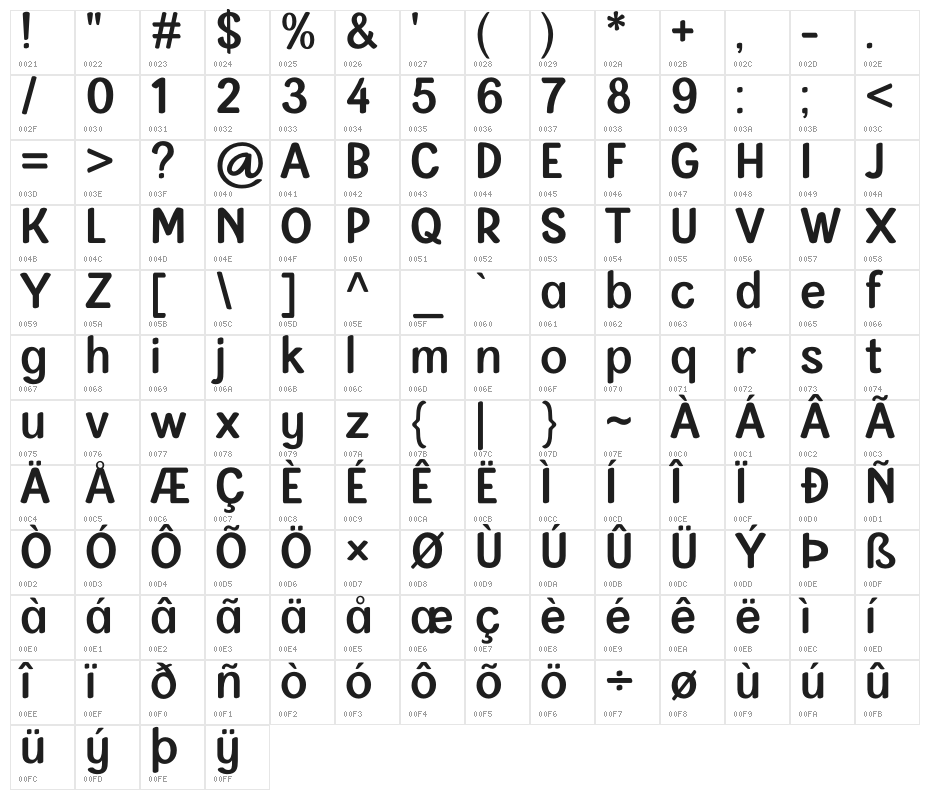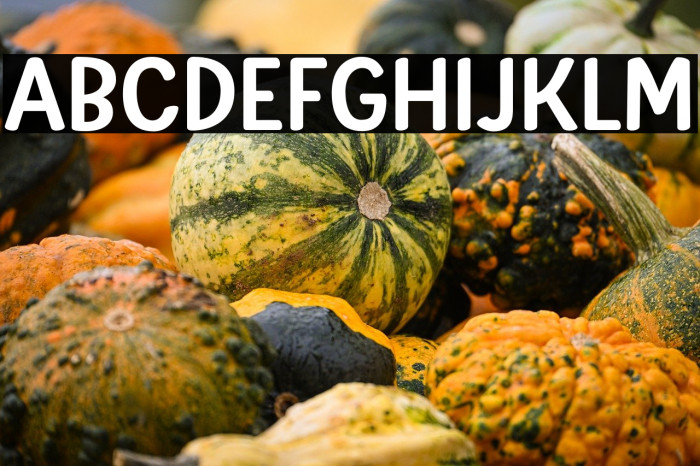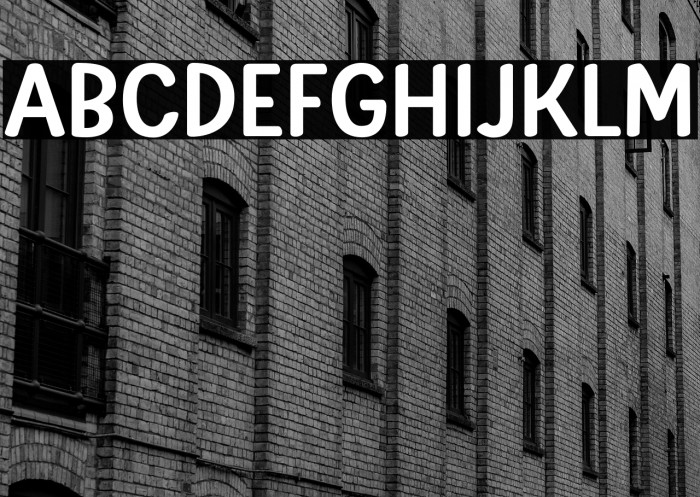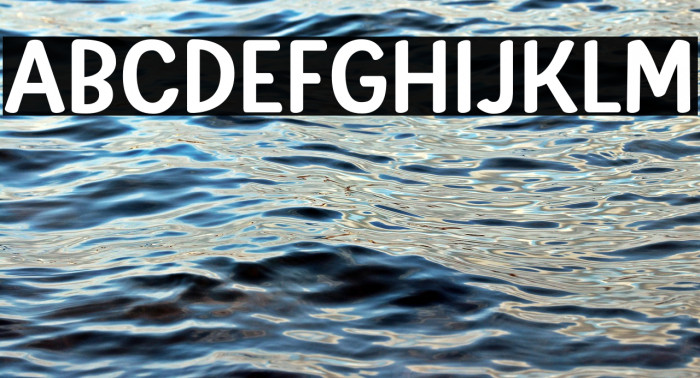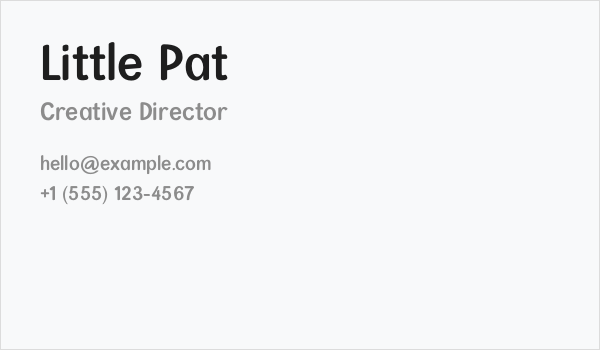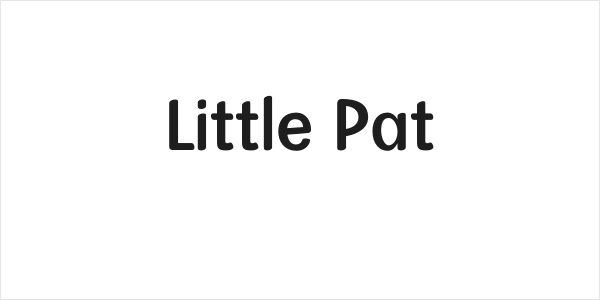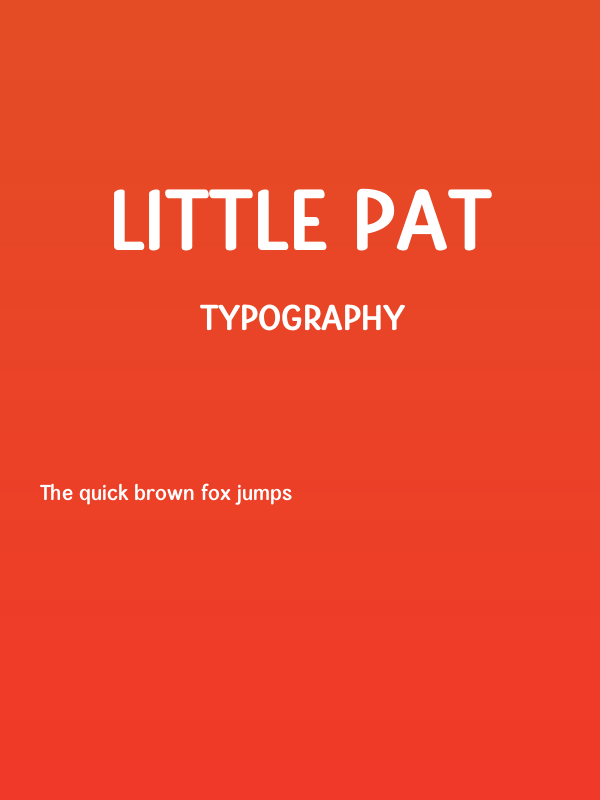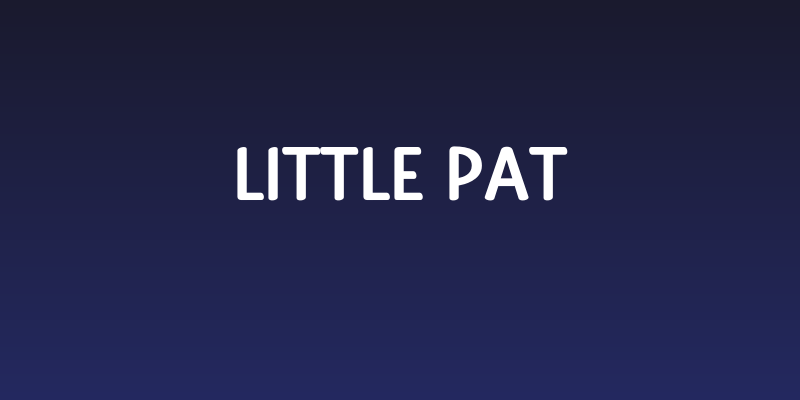
Little Pat Font
Little Pat Description
This font features a clean and modern sans-serif style with rounded edges, giving it a friendly and approachable appearance. The characters are evenly spaced, providing excellent readability. The uppercase letters are bold and well-defined, while the lowercase letters maintain a consistent height, ensuring a harmonious look. The numerals are clear and distinct, making them suitable for various applications. The special characters are well-integrated, maintaining the overall aesthetic of the font. This font is versatile, suitable for both digital and print media, and can be used in a variety of design projects.